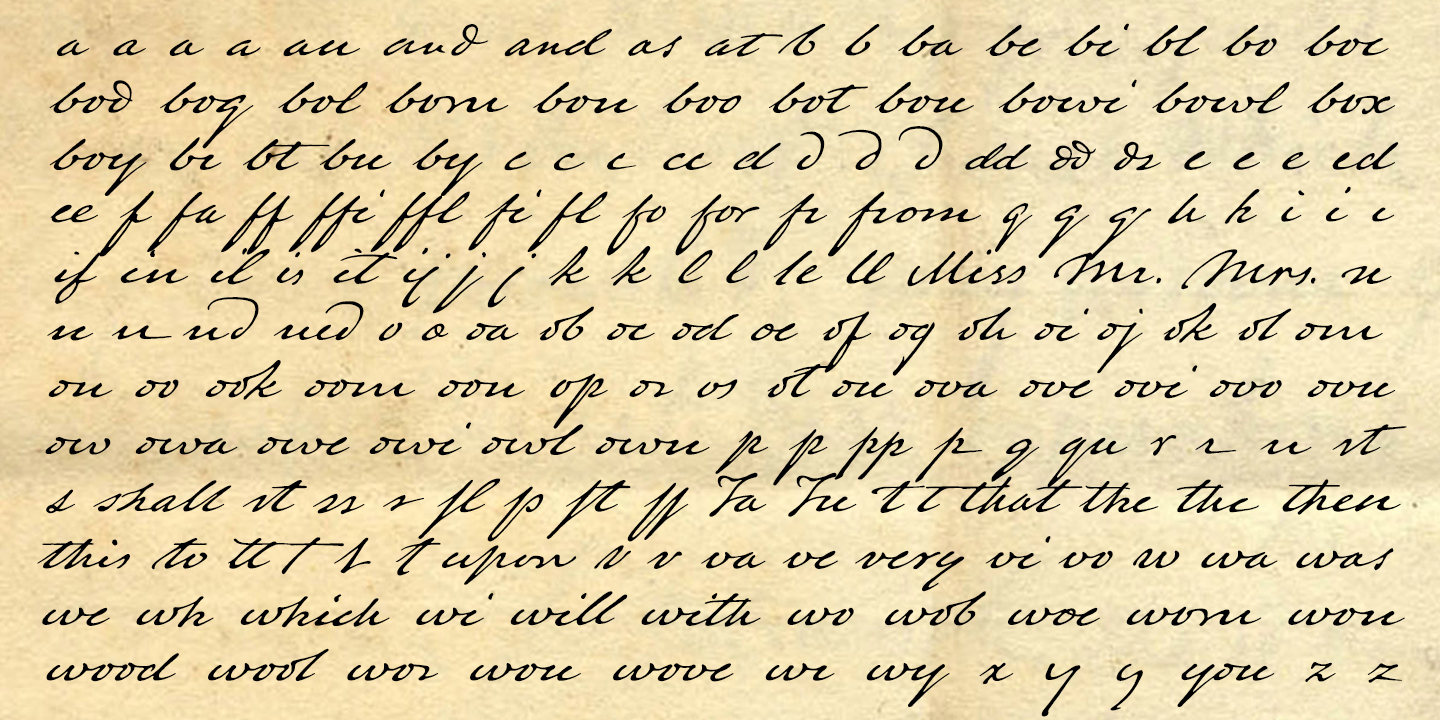
Perfect for handwritten wedding invitations, personal branding materials, artisan product labels, boutique marketing campaigns, creative portfolio designs, journal covers, greeting card design, and authentic storytelling projects.
This font is exciting because it captures the intimate charm and personal touch of handwritten correspondence with flowing pen strokes that bring genuine human warmth and authenticity to digital communications.
Experience the intimate beauty of handwritten elegance with Austin Pen Font Free Download, a captivating typeface that brings the personal touch and authentic charm of handwritten correspondence to contemporary design projects. This exceptional font captures the flowing grace and human warmth of traditional pen and ink writing, making it perfect for brands and projects seeking to create genuine personal connections and authentic storytelling experiences.
Austin Pen Font features naturally flowing letterforms with organic pen stroke characteristics that immediately evoke the intimacy and authenticity of personal handwriting. The carefully crafted characters combine handwritten charm with digital reliability, creating immediate associations with personal care, individual attention, and the genuine human connections that distinguish meaningful communications from mass-produced messaging in today's impersonal digital landscape.
The font's remarkable authenticity makes it invaluable for boutique businesses, creative professionals, and artisan brands where conveying personal touch and individual craftsmanship is essential for building customer loyalty and emotional connections. Whether you're designing marketing materials for handcrafted product companies that celebrate individual artistry, creating promotional content for personalized service providers, or developing brand identities for creative consultancies, Austin Pen Font delivers the authentic handwritten aesthetic that resonates with audiences seeking genuine personal experiences.
Creative entrepreneurs and artisan businesses worldwide choose the Austin Pen Font Free Download for projects requiring personal authenticity and handcrafted appeal. The font works brilliantly for custom stationery designers celebrating personal expression, small-batch food producers emphasizing individual attention, wedding planners creating intimate celebrations, and any business seeking to establish connections with audiences who value personal touch and authentic human craftsmanship over mass production.
The comprehensive Austin Pen Font family includes variations that maintain the signature handwritten character while providing design flexibility for diverse personal branding and artisan applications. Each character demonstrates exceptional attention to natural pen flow principles, ensuring the authentic character remains genuine and visually appealing across all sizes, from detailed invitation typography to large-scale boutique signage and personal brand materials.
This typeface excels in applications where creating intimate atmosphere and personal connection is crucial for brand differentiation and customer engagement. The flowing letterforms create immediate emotional warmth that eliminates the need for additional decorative elements, allowing the typography itself to communicate personal care, individual attention, and the authentic human touch that customers increasingly value.
Austin Pen Font's technical excellence ensures optimal performance across both digital platforms and traditional print applications favored by artisan and boutique businesses. The distinctive letterforms maintain their handwritten charm when reproduced on various materials, from business cards to product packaging that must convey personal craftsmanship and individual attention to detail.